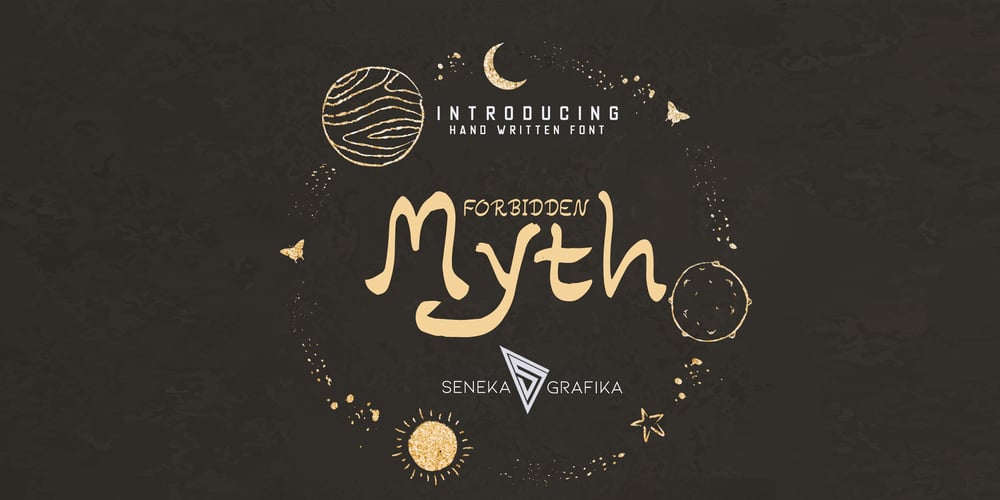
Forbidden Myth
Forbidden Myth Font Family was designed by Muhammad Helmi and published by Senekaligrafika. Forbidden Myth contains 1 styles and family package options. “Forbidden Myth” is a classy and unique lettered font that speak to instant mythological sensationst.It was inspired by ancient greek culture.“Forbidden Myth” will help you to create special and touching typographical design for your myth and galactical projects, for night party, branding, labeling, clothing, movie title, album cover, logos and many more.It is really universal and modern font. The owner of endless possibilities!